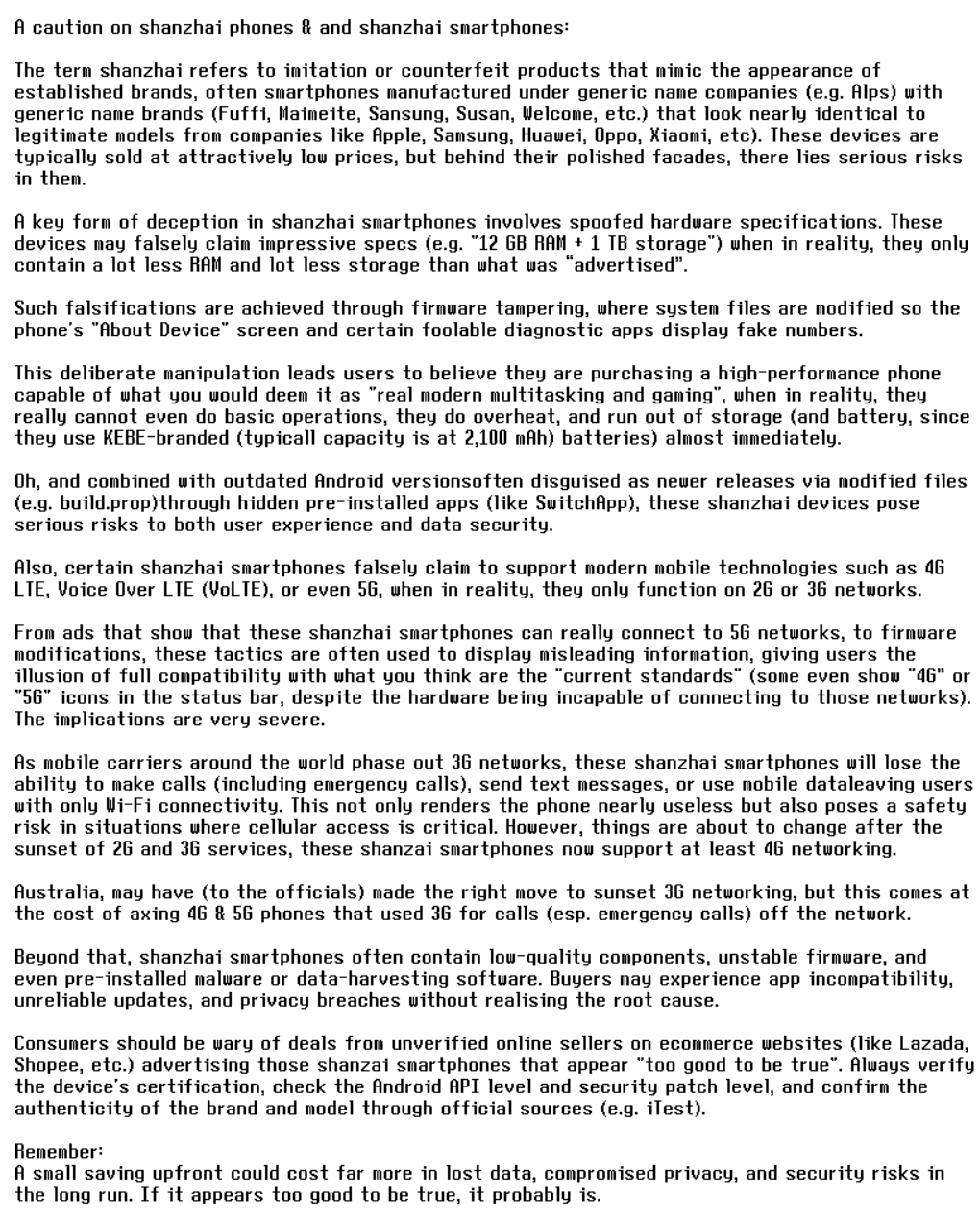
• My improved take on the font that is extracted from the shanzai knockoff of the Nokia 107.
The term shanzhai refers to imitation or counterfeit products that mimic the appearance of established brands, often smartphones manufactured under generic name companies (e.g. Alps) with generic name brands (Fuffi, Maimeite, Sansung, Susan, Welcome, etc.) that look nearly identical to legitimate models from companies like Apple, Samsung, Huawei, Oppo, Xiaomi, etc). These devices are typically sold at attractively low prices, but behind their polished facades, there lies serious risks in them.
A key form of deception in shanzhai smartphones involves spoofed hardware specifications. These devices may falsely claim impressive specifications, when in reality, they only contain a lot less RAM and lot less storage than what was “advertised” (Like a phone that was advertised with 16 GB of RAM and 1 TB  of storage, when in reality, they contain about 1 GB of RAM and 8 GB of storage).
Such falsifications are achieved through firmware tampering, where certain system files are modified so the phone's "About Device" screen and certain foolable diagnostic apps display fake numbers (but not all diagnostic apps can be fooled, like Hugh Jeffreys's iTest app, available for iOS and Android for 99 cents).
This deliberate manipulation leads users to believe they are purchasing a high-performance phone capable of what you would deem it as "real modern multitasking and gaming", when in reality, they really cannot even do basic operations, they do overheat, and run out of storage (and battery, since they use KEBE-branded (typicall capacity is at 2.1 Ah) batteries) almost immediately.
Oh, and combined with outdated Android versions—often disguised as newer releases via modified files (through the build.prop file located at /system)—through hidden pre-installed apps (like SwitchApp), these shady shanzhai devices pose serious risks to both user experience and data security.
Also, certain shanzhai smartphones falsely claim to support modern mobile technologies such as 4G LTE, Voice Over LTE (VoLTE), or even 5G, when in reality, they only function on 2G or 3G networks.
From ads that show that these shanzhai smartphones can really connect to 5G networks, to firmware modifications, these tactics are often used to display misleading information, giving users the illusion of full compatibility with what you think are the "current standards" (some even show "4G” or "5G" icons in the status bar, despite the hardware being incapable of connecting to those networks). The implications are very severe.
As mobile carriers around the world phase out 3G networks, these shanzhai smartphones will lose the ability to make calls (including emergency calls), send text messages, or use mobile data—leaving users with only Wi-Fi connectivity. This not only renders the phone nearly useless but also poses a safety risk in situations where cellular access is critical. However, things are about to change after the sunset of 2G and 3G services, these shanzai smartphones now support at least 4G networking just because they upgraded the CPU to a Unisoc (formerly Spreadtrum) SC9863A / T606 (the new kings of the fake phone world. Yes, they are legitimate 4G chips, but they perform like entry-level tech from several years ago) or a better version of MediaTek (MT6737 / MT6739, but still old-ass CPUs with 4G networking that are now pennies on the dollar for mass production), but they're still impacted as these do fallback to 3G for calls and text, meaning that they essentially did nothing to improve it.
Australia, may have (to the officials) made the right move to sunset 3G networking, but this comes at the cost of axing 4G & 5G phones that used 3G for calls (esp. emergency calls) off the network.
Beyond that, shanzhai smartphones often contain low-quality components, unstable firmware, and even pre-installed malware or data-harvesting software. Buyers may experience app incompatibility, unreliable updates, and privacy breaches without realising the root cause.
Consumers should be wary of deals from unverified online sellers on e-commerce websites (like Lazada, Shopee, etc.) advertising those shanzai smartphones that appear "too good to be true". Always verify the device's certification, check the Android API level and security patch level, and confirm the authenticity of the brand and model through official sources (e.g. iTest).
Remember that a small saving upfront could cost far more in lost data, compromised privacy, and security risks in the long run. If it appears too good to be true, it probably is.
“when in reality, they only contain a lot less RAM and lot less storage than what was “advertised”.”
Pretty nice font though. Also, I noticed several characters in the Latin Extended-A block missing diacritics
It would have been better if you set your long text with your font: 山寨专业版. I feel sorry for the unfortunate letters that were squeezed mercilessly to fit the same width.
The Shanzhai phone font?
Exactly, but this is one of many Shanzai designs.